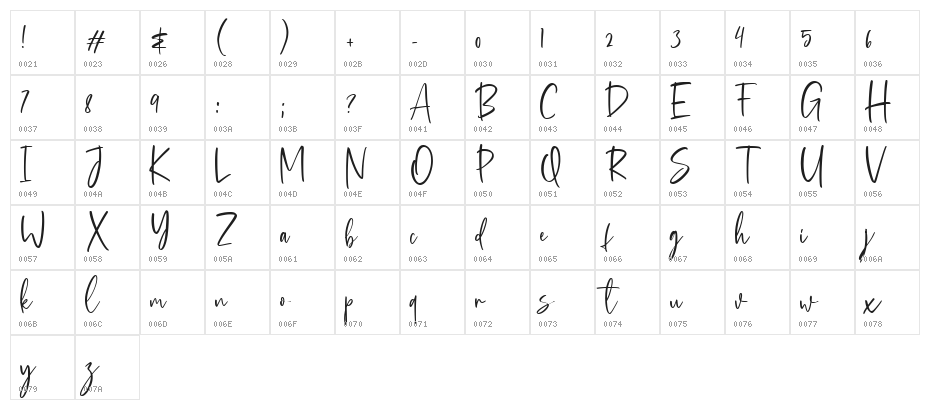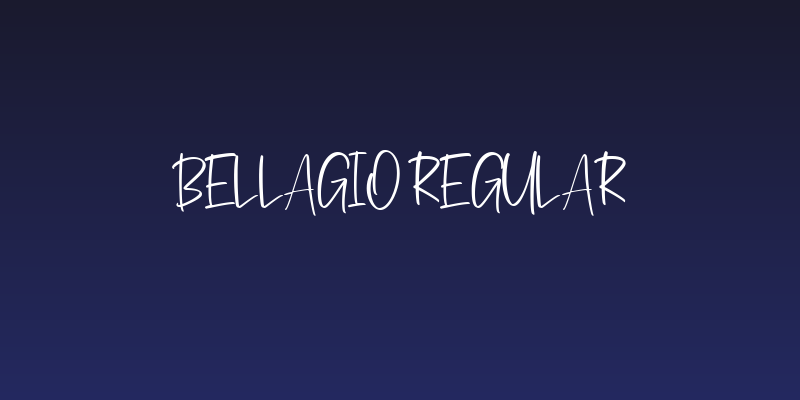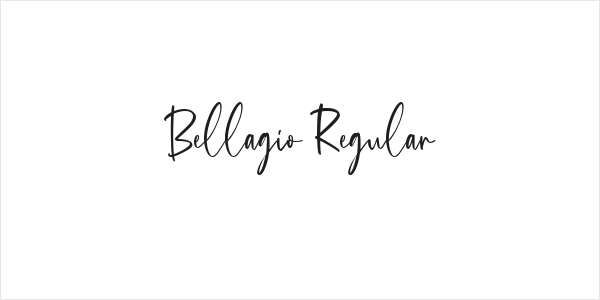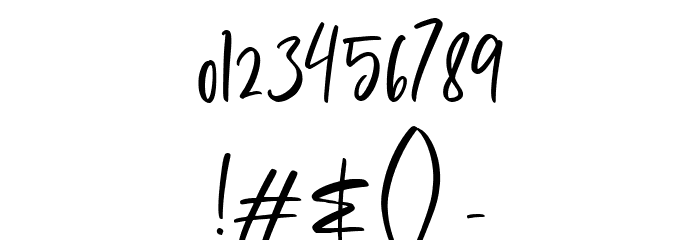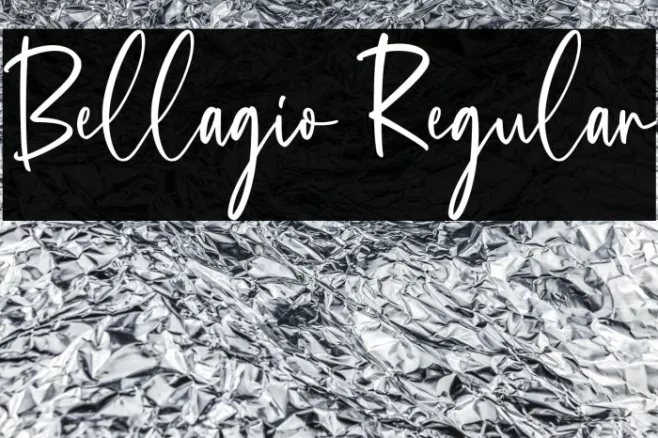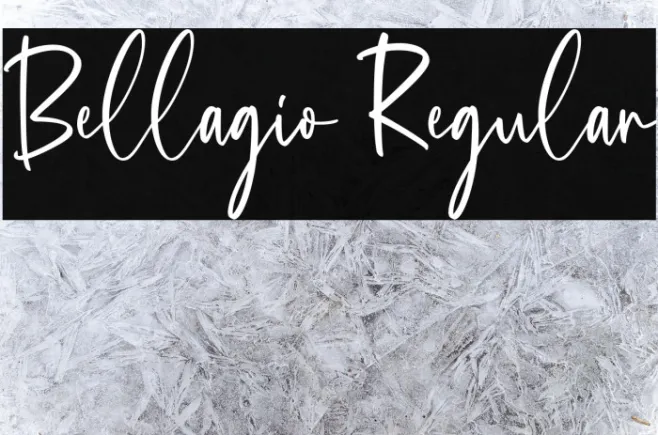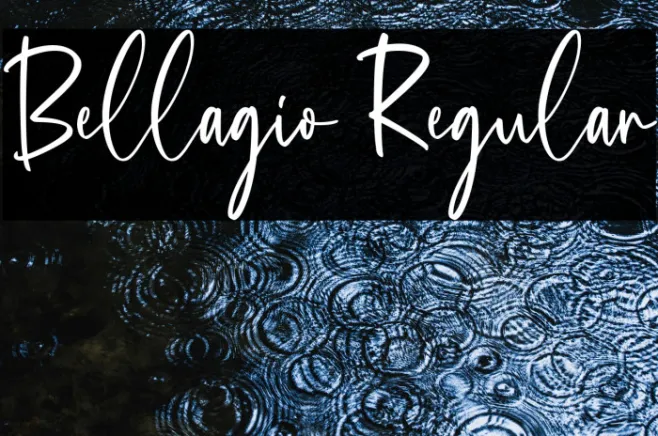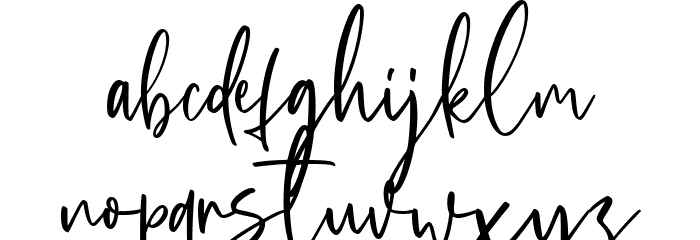
Bellagio Regular Font
Bellagio Regular Description
This font features a lively and expressive handwritten style, characterized by its fluid and dynamic strokes. The uppercase letters are tall and slightly narrow, with a playful yet elegant appearance. The lowercase letters maintain a consistent flow, adding a sense of movement and personality to the text. Numbers and special characters are crafted with the same energetic flair, making them stand out while remaining cohesive with the overall design. This font's unique charm and artistic touch make it suitable for creative projects that require a personal and informal feel.
| Proposed Projects | Ideal for greeting cards, invitations, personal branding, and creative social media graphics. |